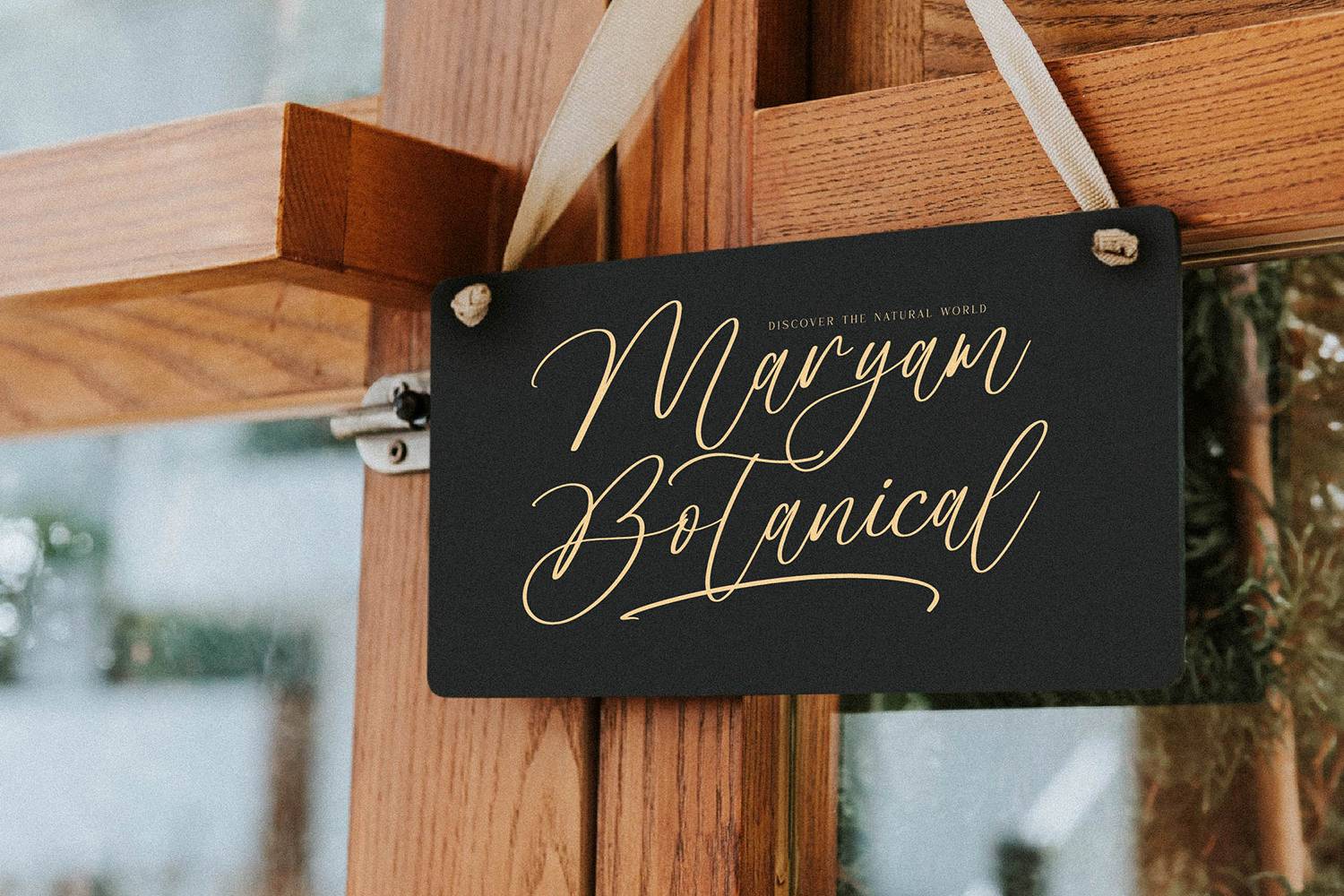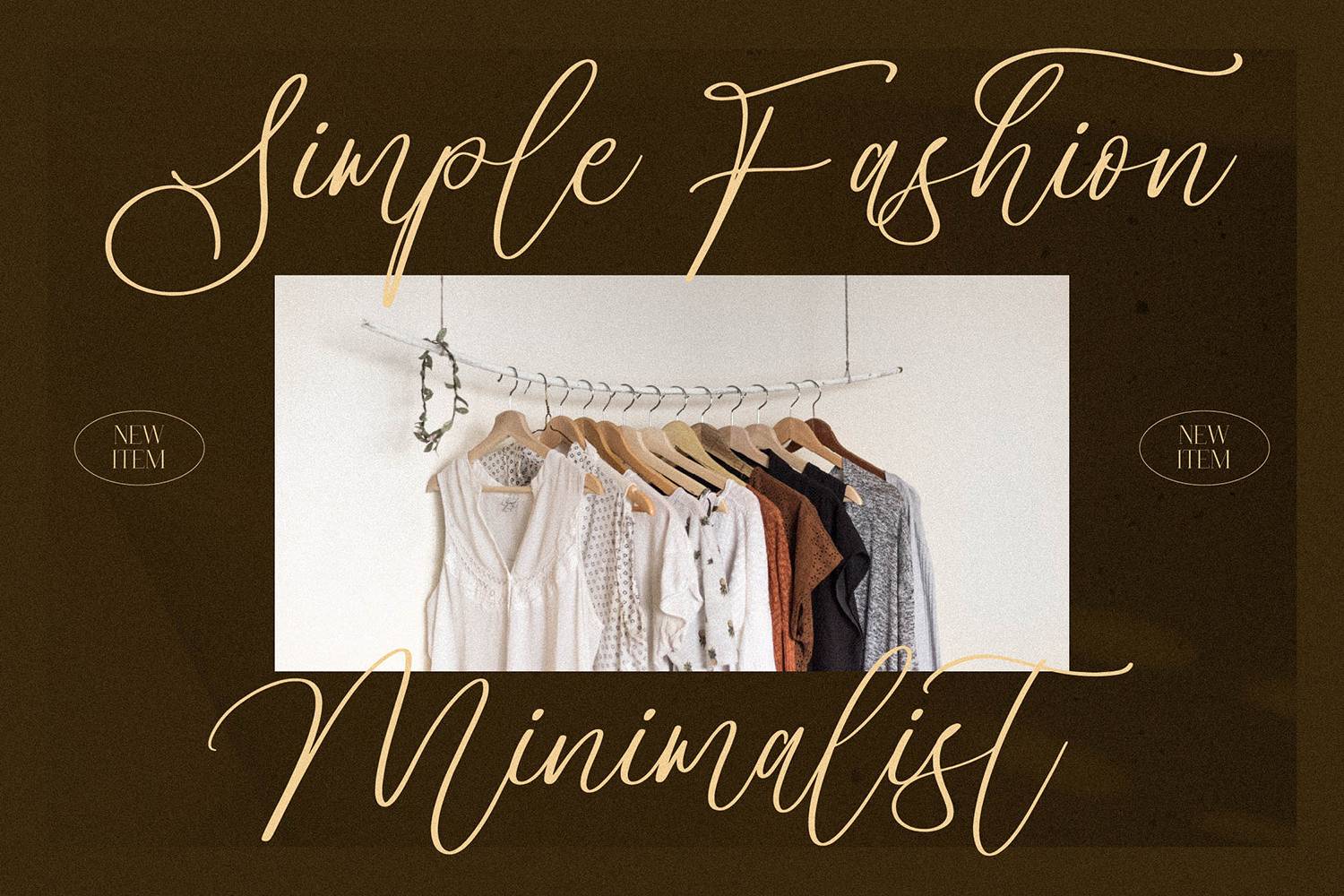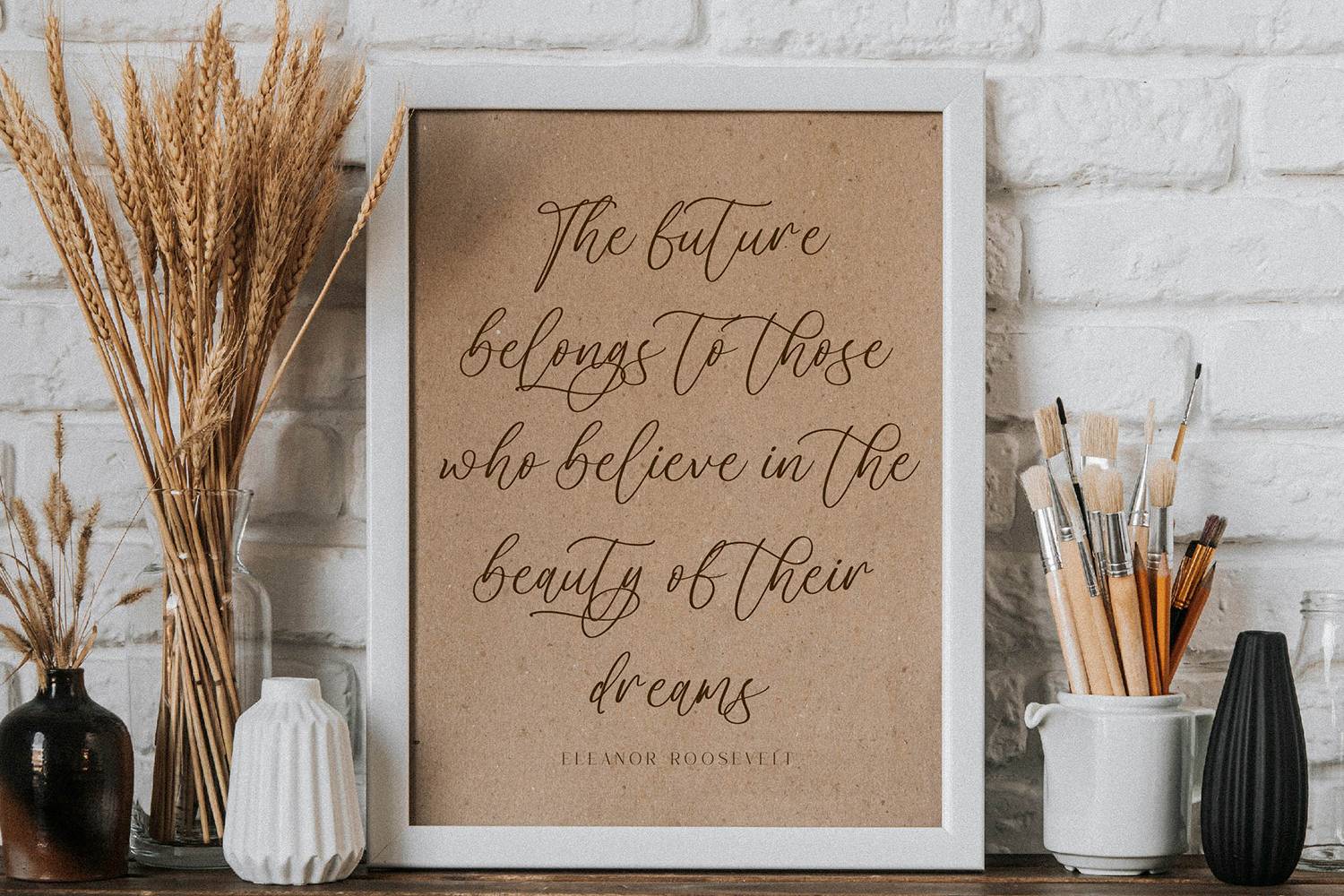
Nekiatha Charley is an elegant, delicate script font with flowing, slender strokes that mimic graceful handwriting. Its light weight and airy letterforms give it a refined, sophisticated feel, making it perfect for invitations, branding, and any design needing a touch of personalized charm. This font works beautifully in settings where elegance and a soft, artistic expression are desired.
Nekiatha Charley Font
About Nekiatha Charley Font